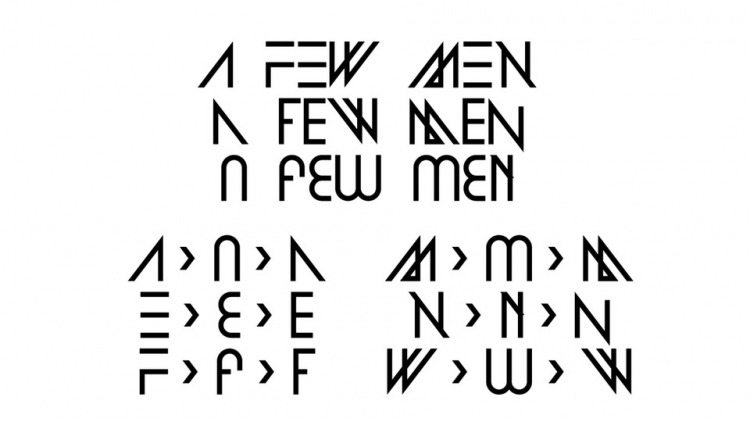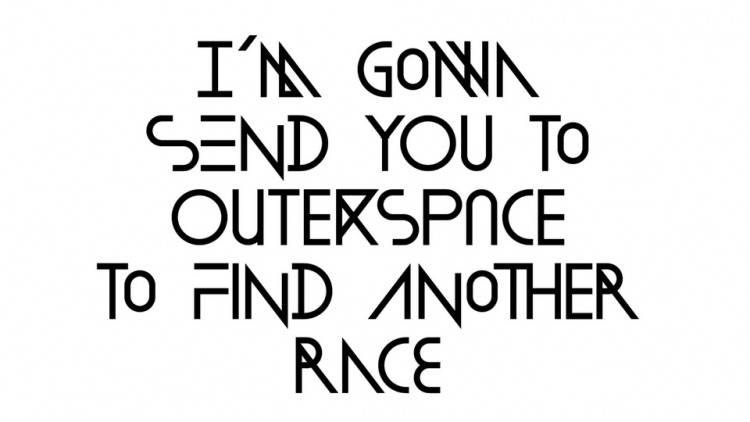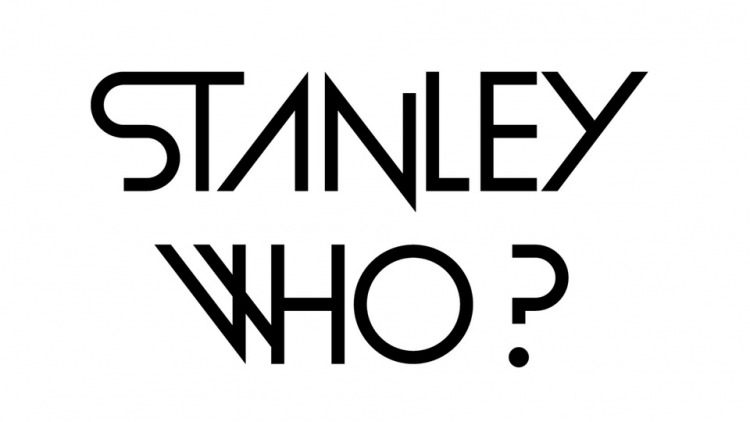
Modulo Display Font
This is a serif based logo typeface with unique lowercase that will make your design looks stylish and modern. Modulo is an experimental display typeface drawn from 7 basic geometrical figures modularly assembled. Several versions of each letters are available through OpenType features.